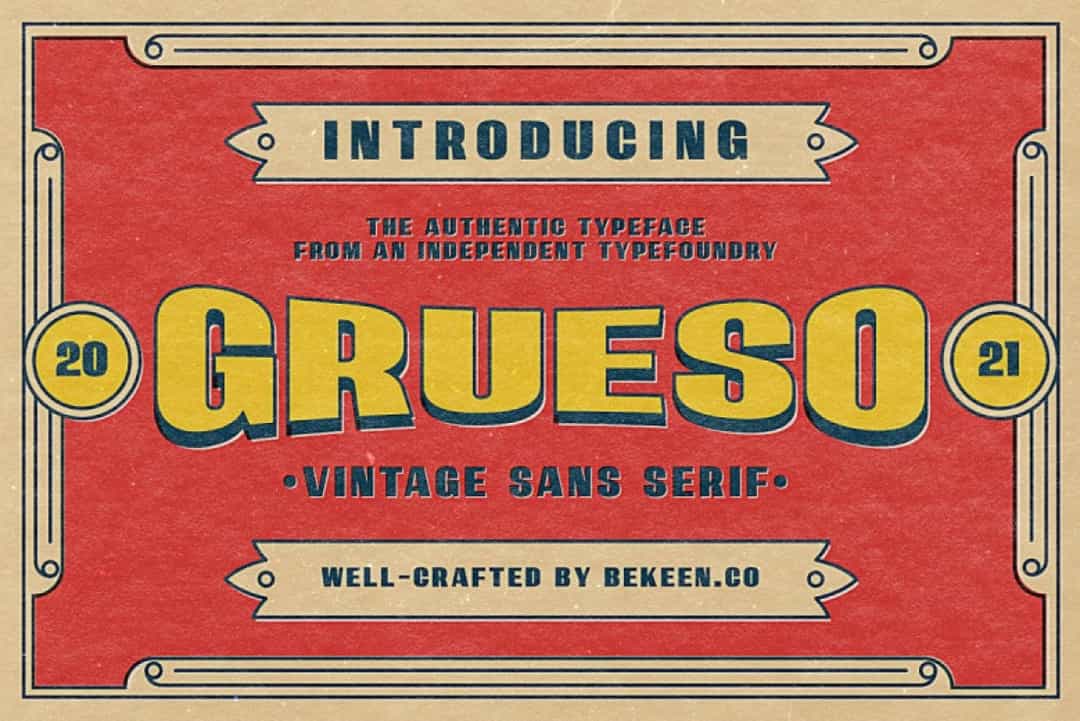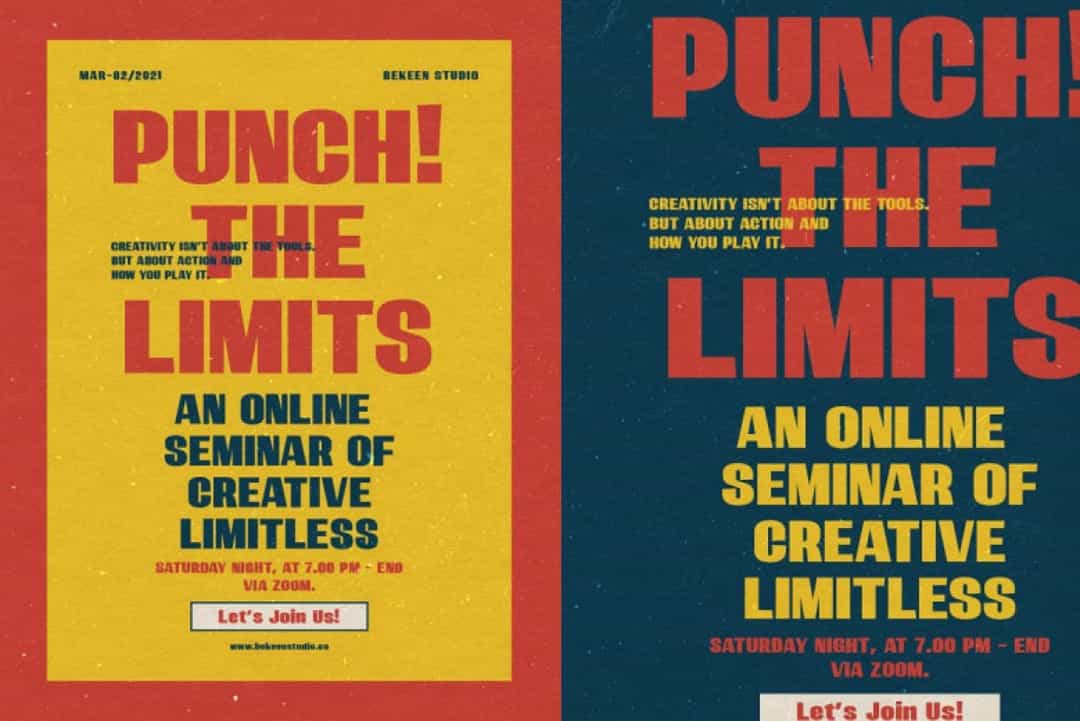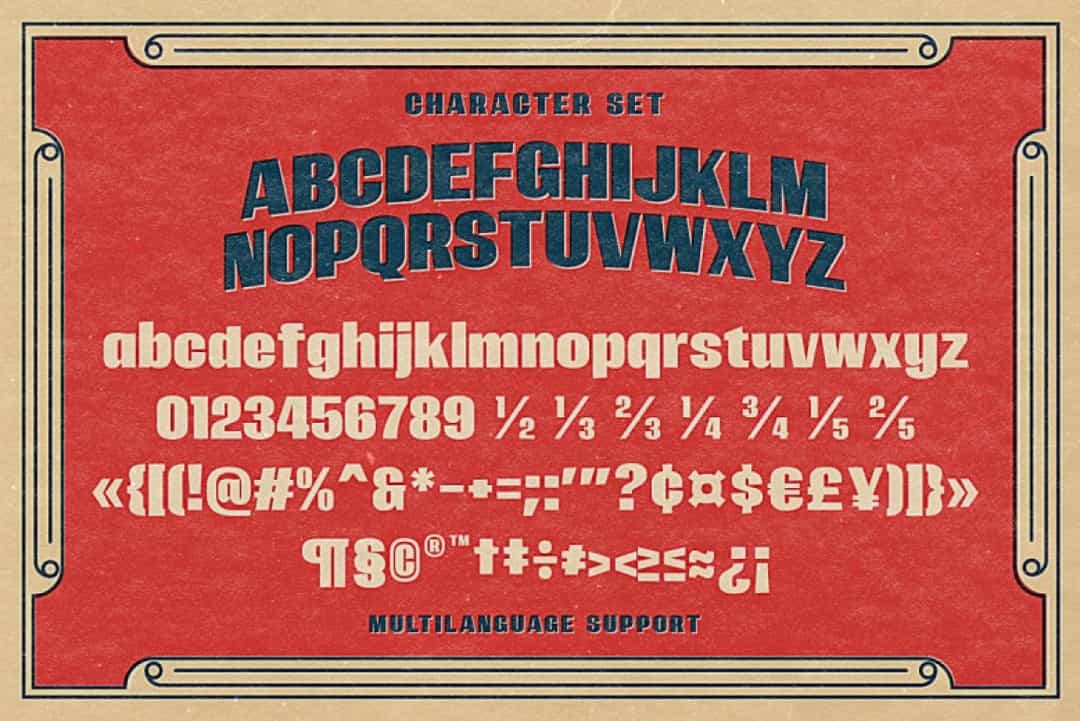
The GRUESO is a timeless Sans Serif font inspired by vintage 1960s posters. GRUESO (Spanish for “thick”) represents its thick retro style; perfect for branding, labels packaging posters advertisements websites as well as any retro-themed designs.